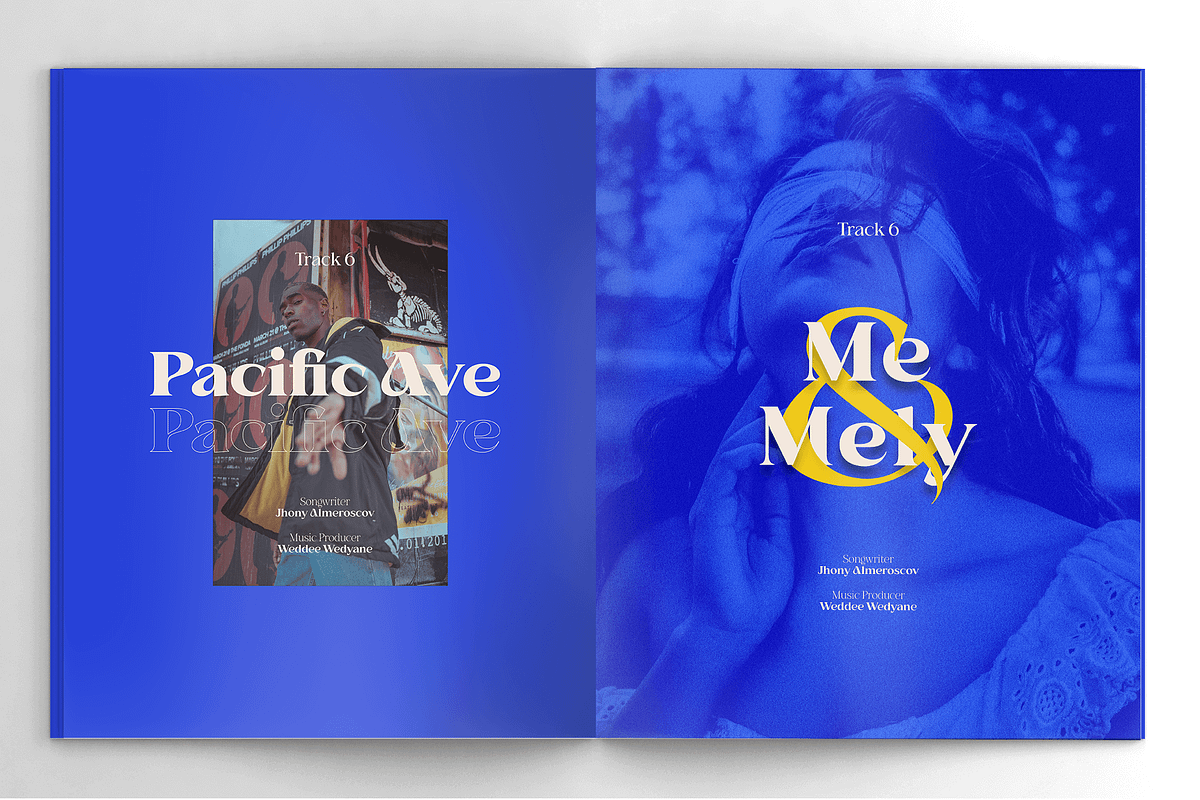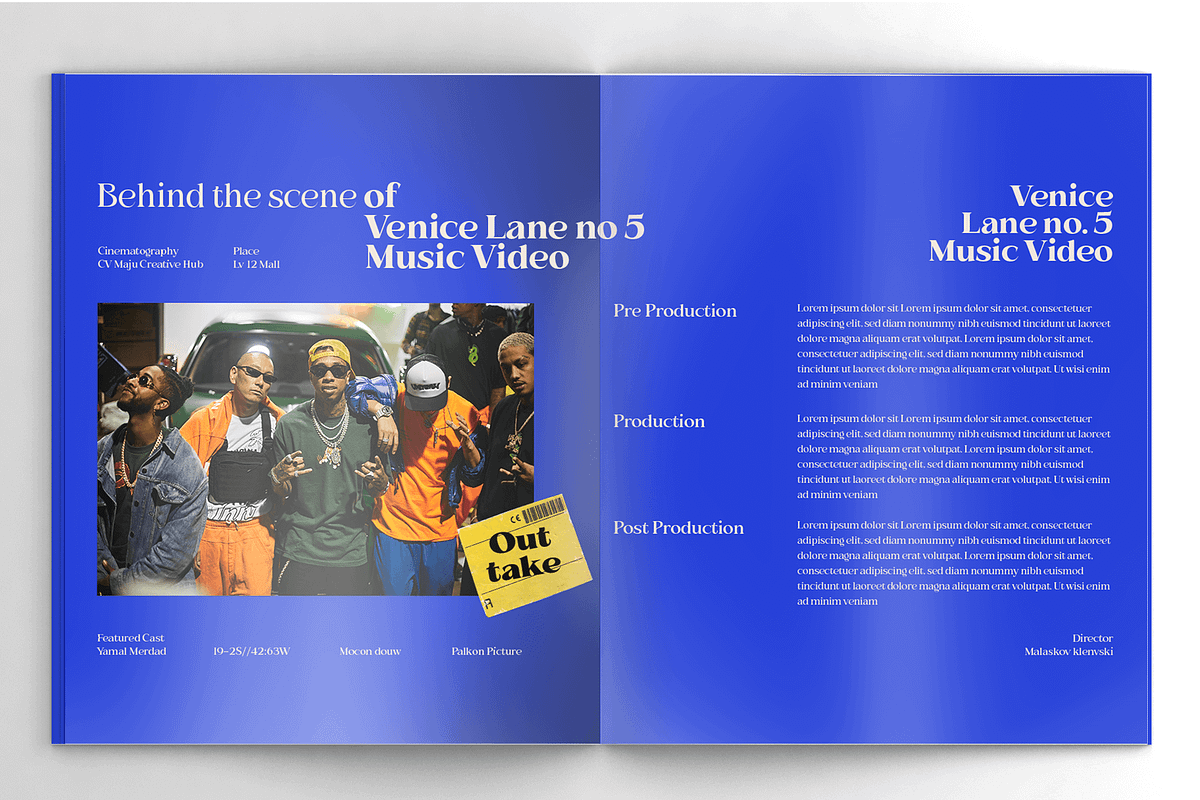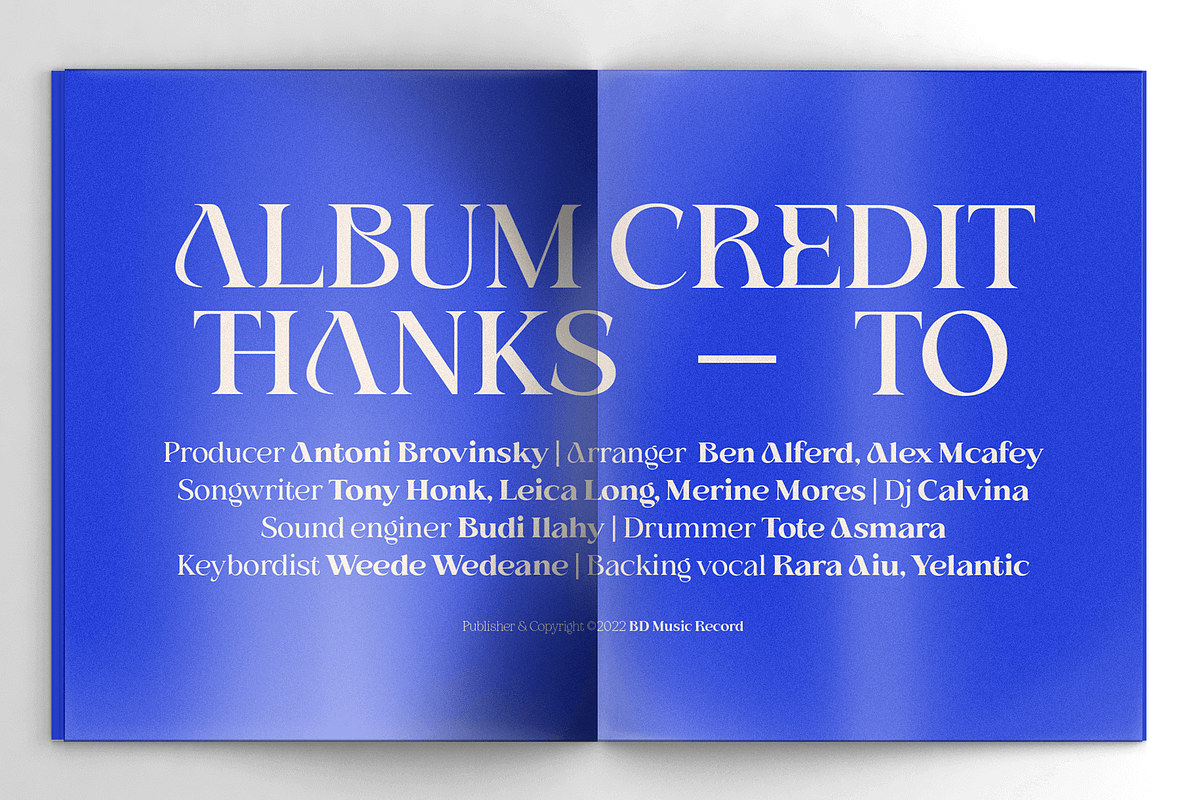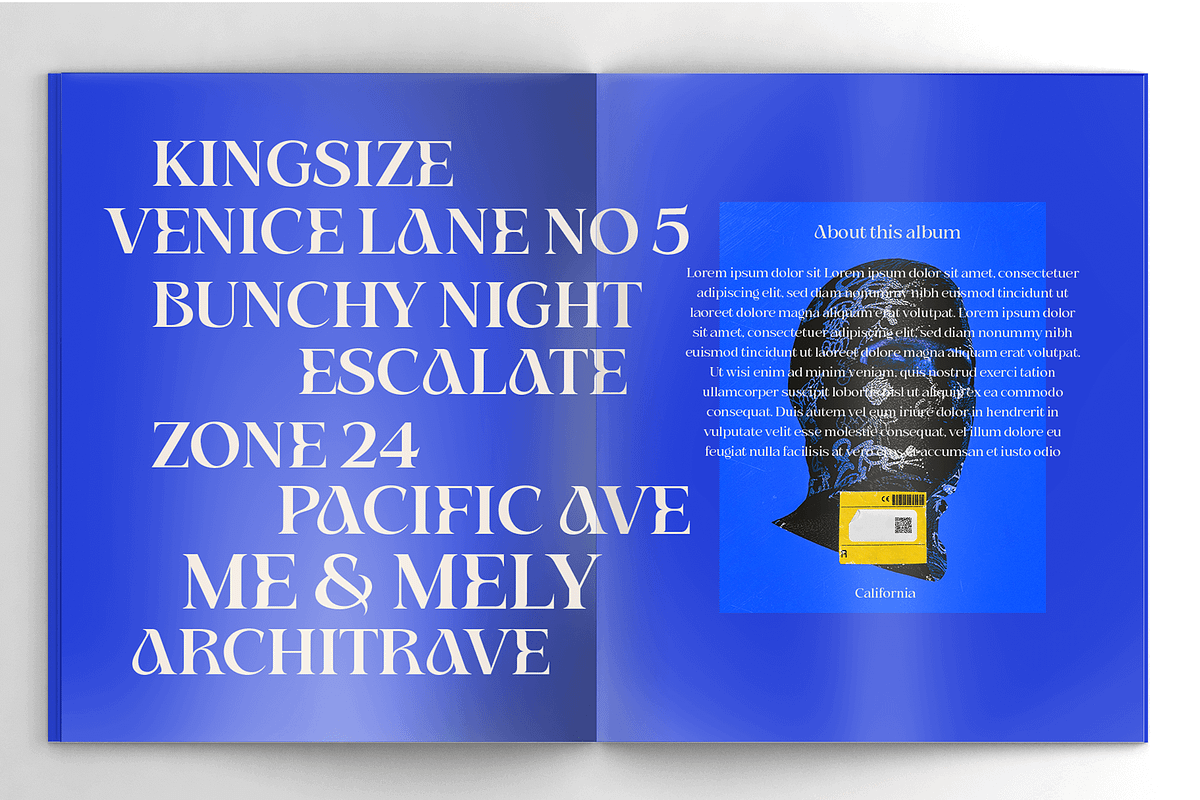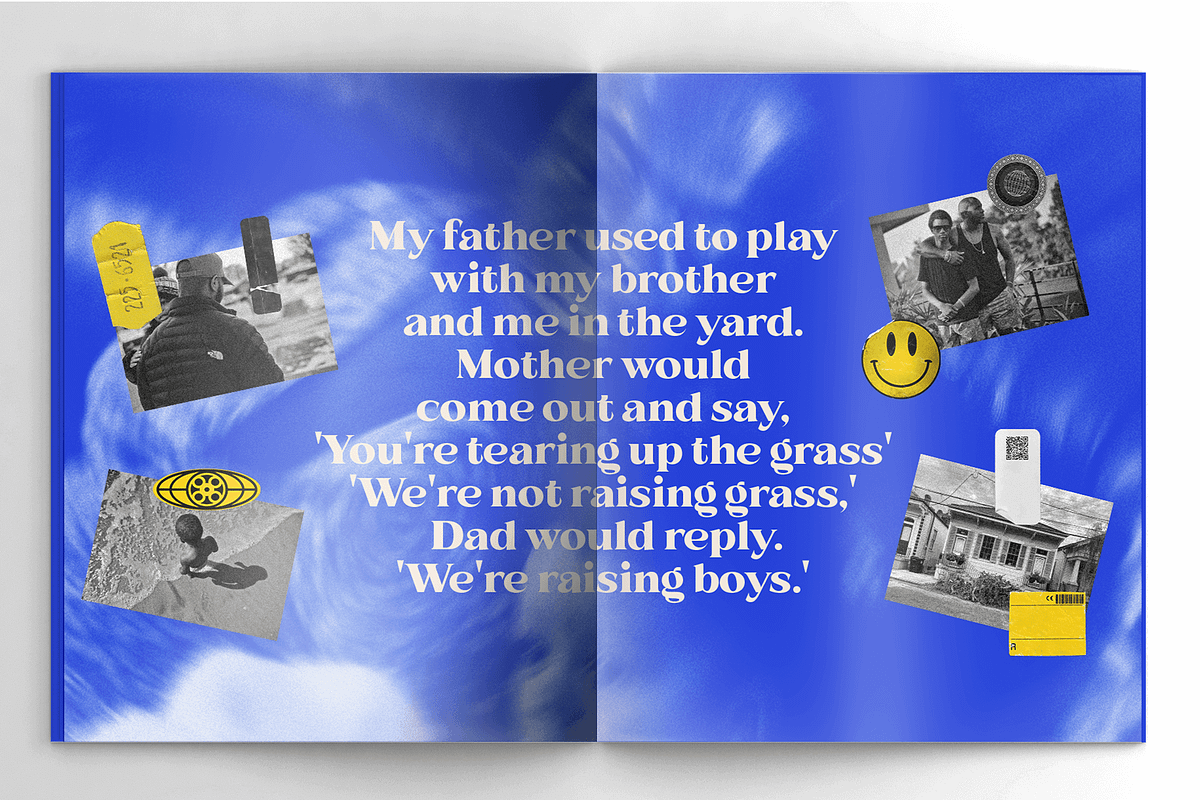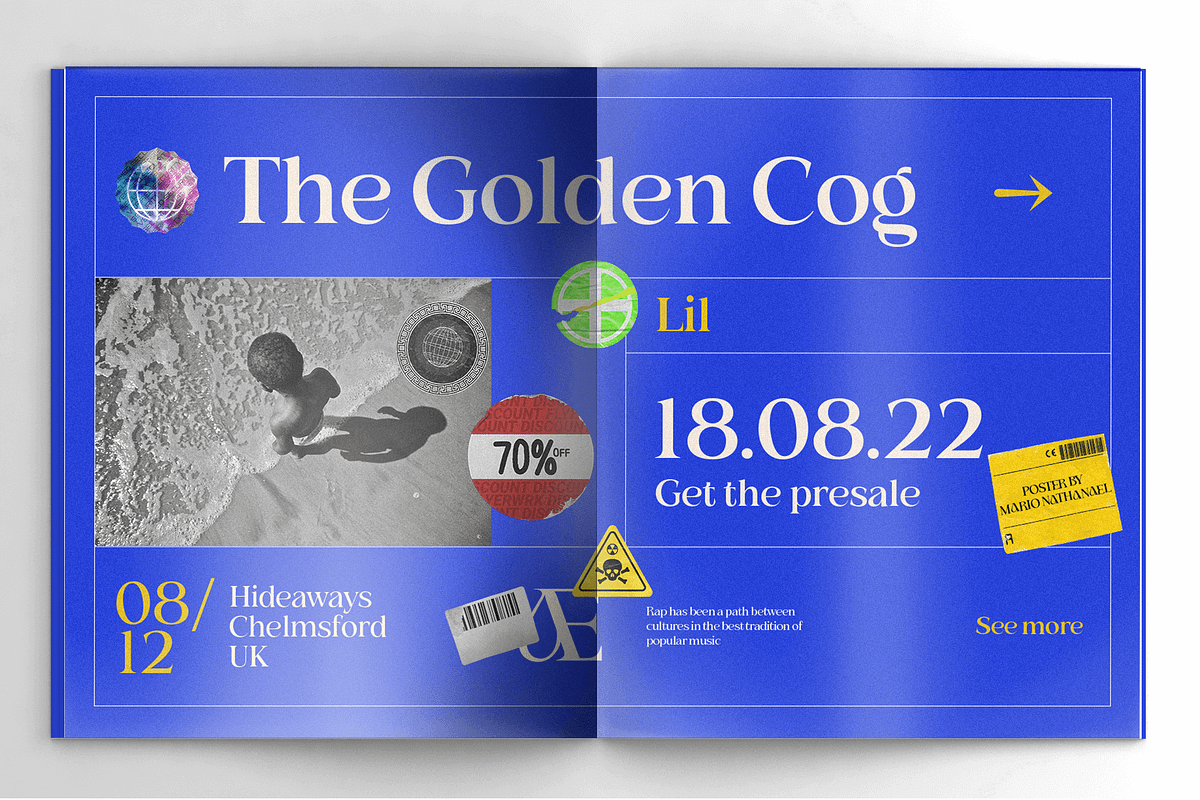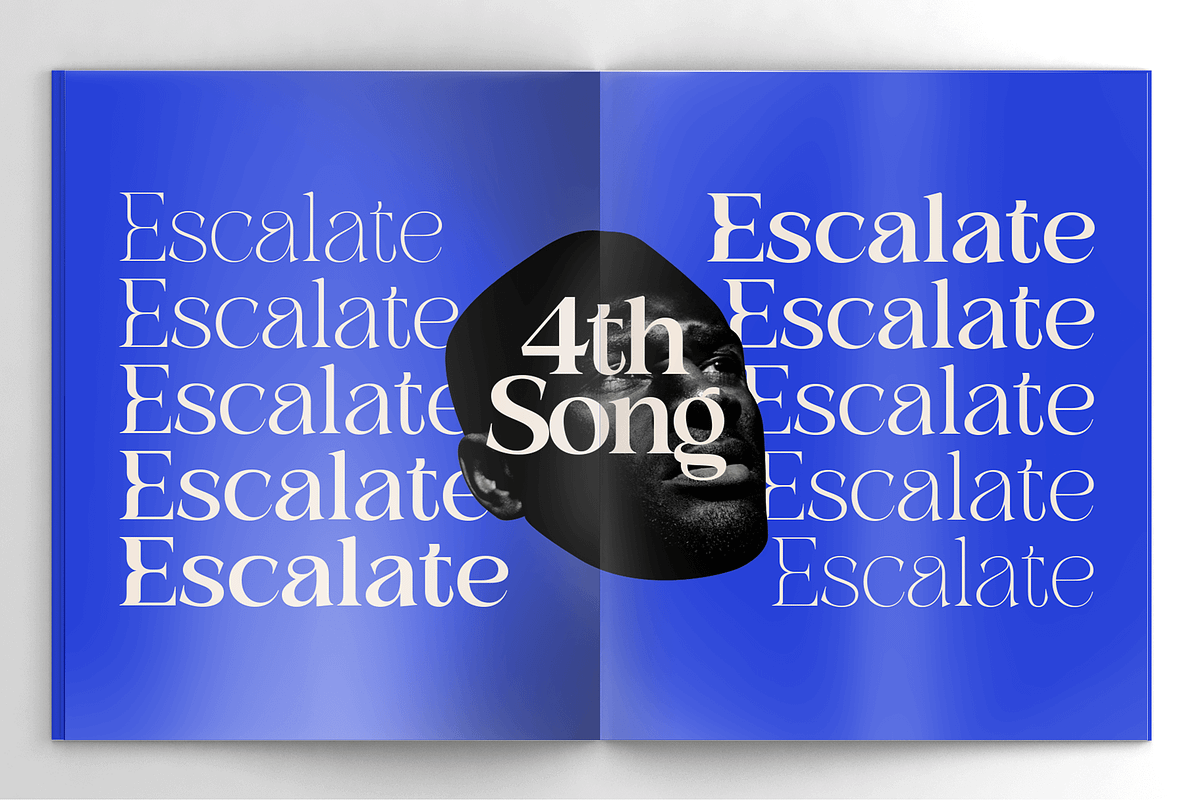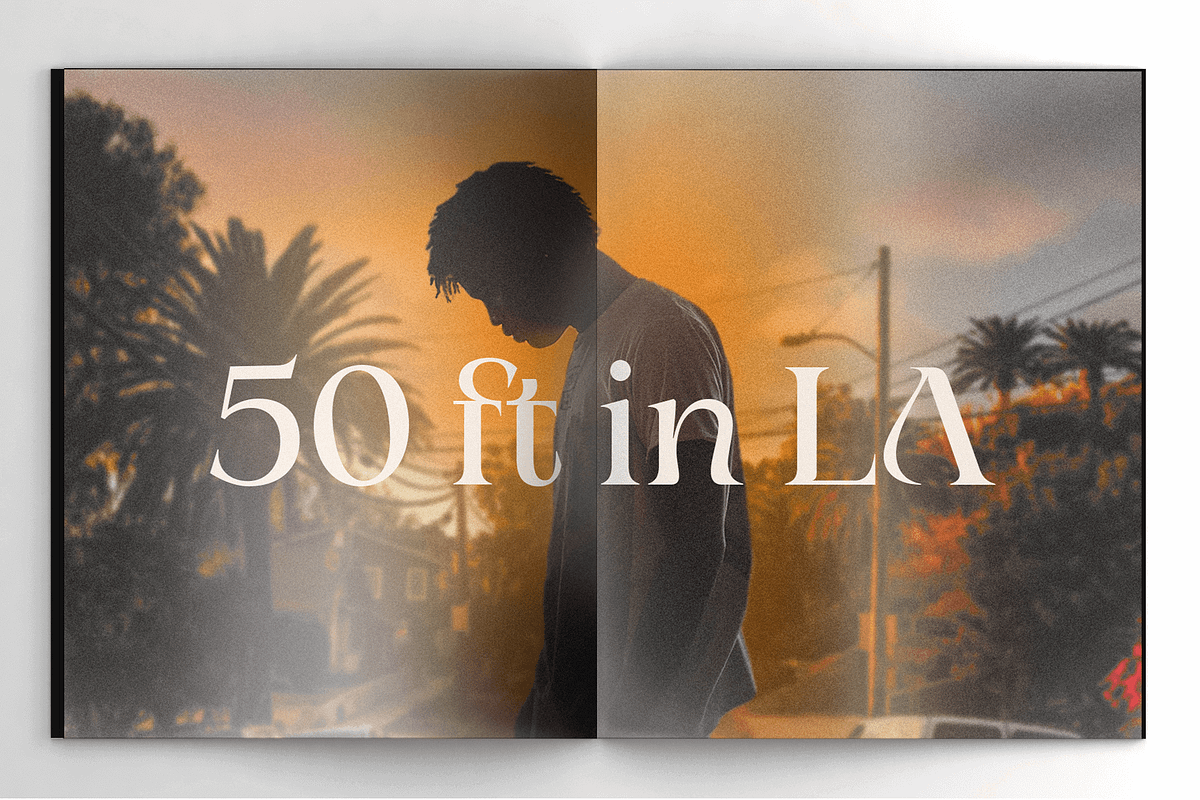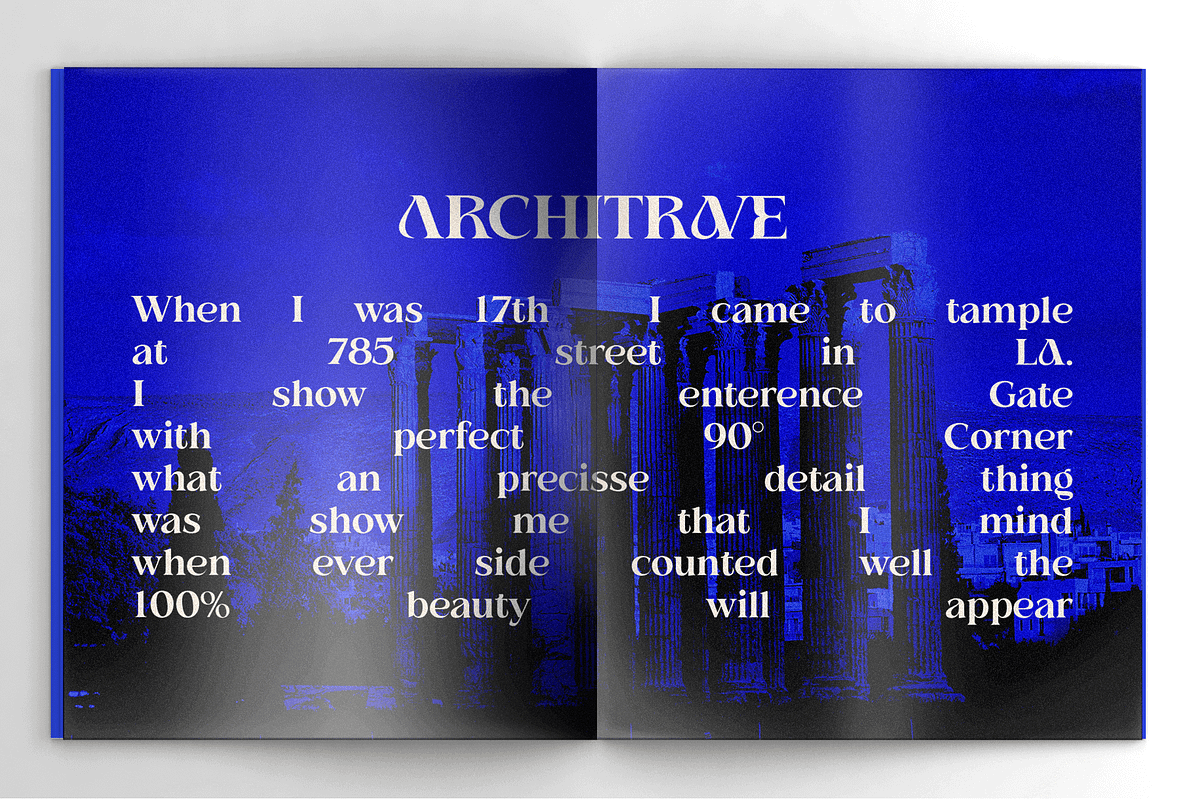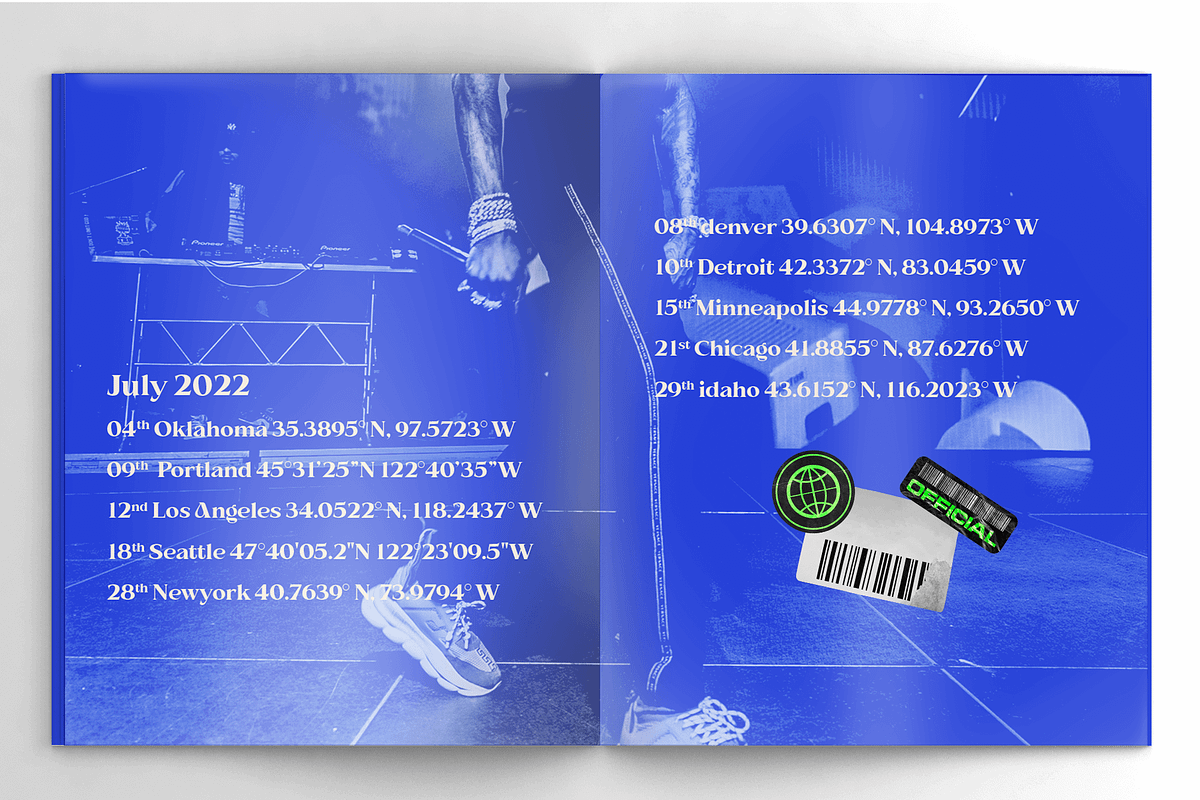
BD Gitalona Moxa
This is an Experimental typeface, a direct descendant of the BD Gitalona font family, which has a supermassive family with Variable technology. However, this version is more on the aesthetic aspect, which is experimental and exploratory. It complements the beauty of the primary typeface that we released separately.
Inspiration
The world of entertainment moves non-stop. One by one, figures appeared and left. We expect to create something to entertain previous trends with packaging more relevant to the present. More specifically, we admire and are inspired by some of the world's leading and top singers with a segmented nature. We imagine so many figures that can affect every viewer. However, each artist or singer has a segment because almost all of them have characteristics.
The Design
The basic design of this typeface begins with a transitional serif shape with sharp, shapeless corners. Then in the middle of the invention, there was an opportunity to explore it further from the readability side by adding an optical variable that can adjust the serif thickness when used together between large, medium to paragraph text sizes for editorials. The shift from serif to sans-serif with the contrast initiated by the shift of the serif family form as a different variable also makes this font richer in terms of the features it contains. Parts are expected to add to the user satisfaction with the complexity of this font.
The Features
A total of 700+ glyphs in each style. Advanced OpenType features functionally and aesthetically, such as Case-sensitive forms, small caps, standard and discretionary ligatures, stylistic alternates, ordinals, fractions, numerator, denominator, superscript, subscript, circled number, slashed zero, old-style figure, tabular and lining figure. Supports multi-languages including Western Europe, Central Europe, Southeast Europe, South America, and Oceania.